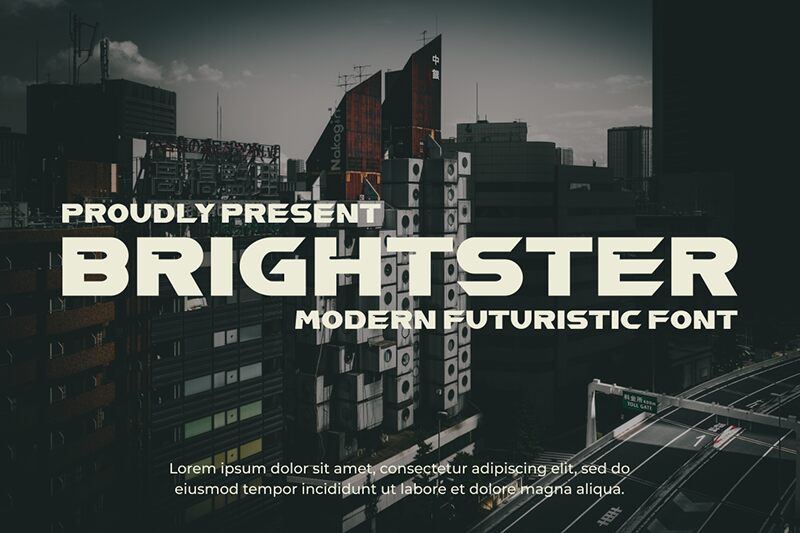
BRIGHTSTER Bold
Brightster Bold font is a bold expanded techno display font from Gilang Ternadho of Maikohatta. Its geometric structure and impactful appearance give it an assertive presence with an industrial feel that mimics machine-writing signatures. The modern look and feel of the typeface arise from the perfect linear finishing of character stems. Use this free display font for any digital or printed project.
Where to implement Brightser? The artist has many options where its retro-futuristic appearance would be appreciated. It can be used for headings, posters, branding, websites, mobile applications, video games, publications, journals, albums, etc..